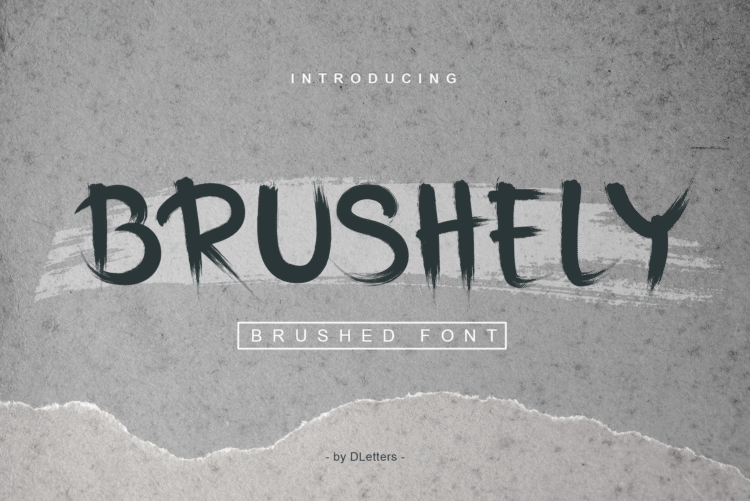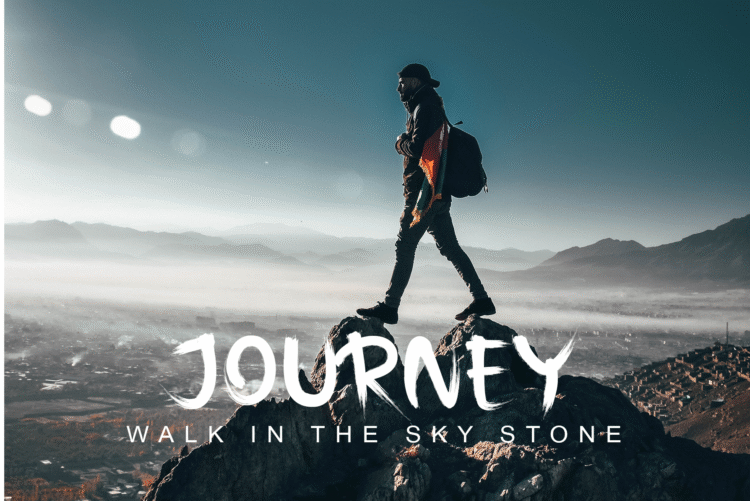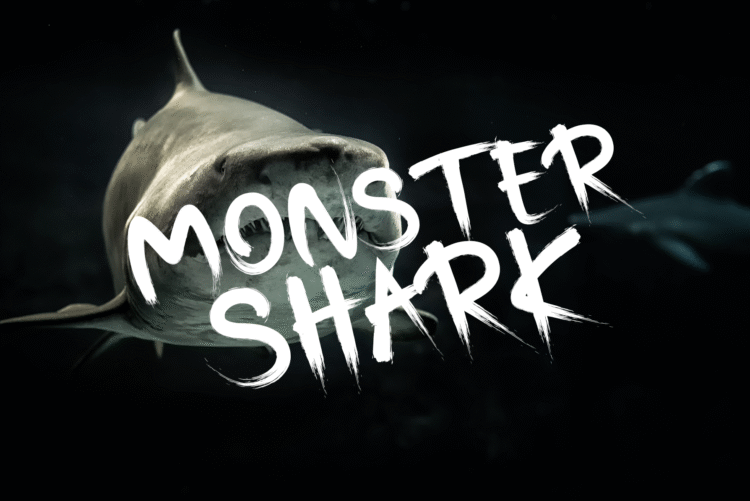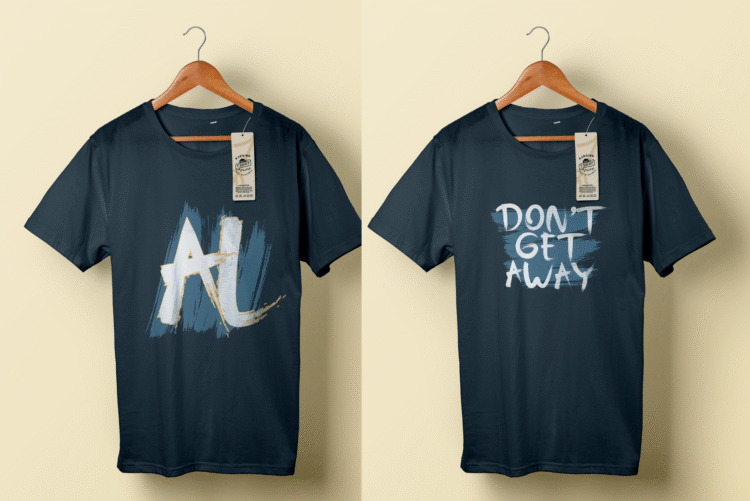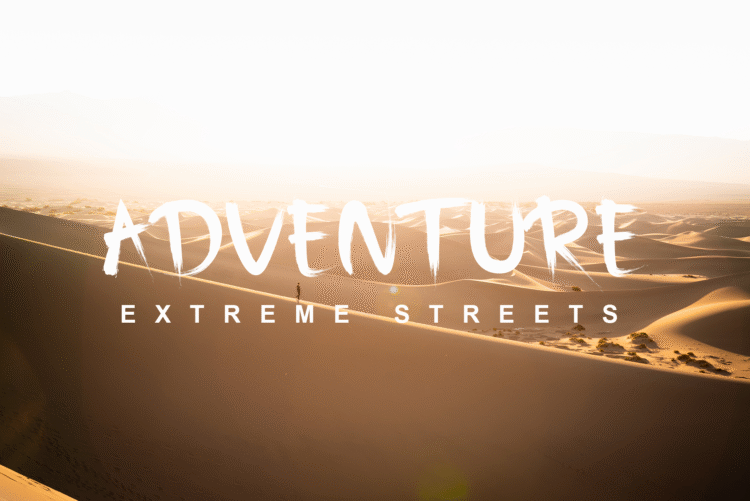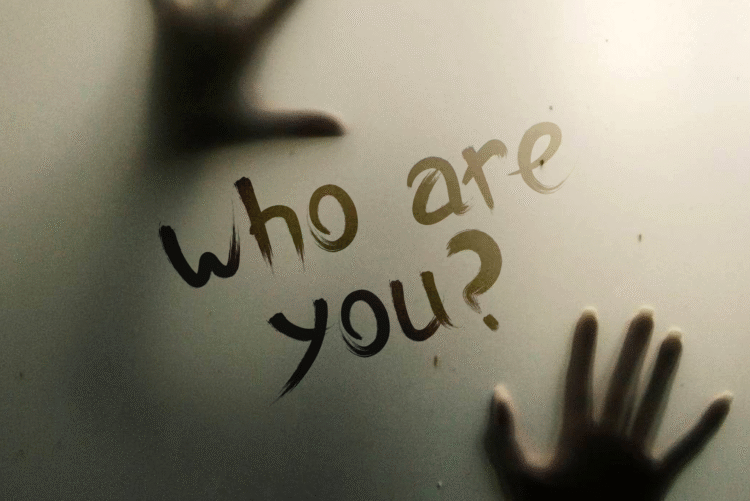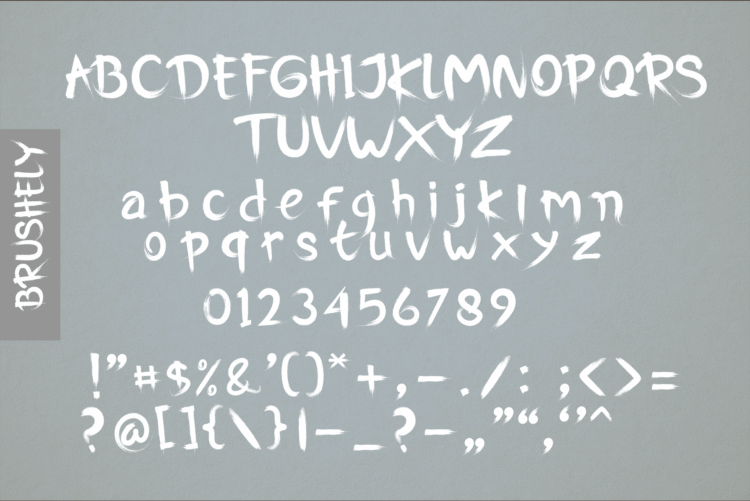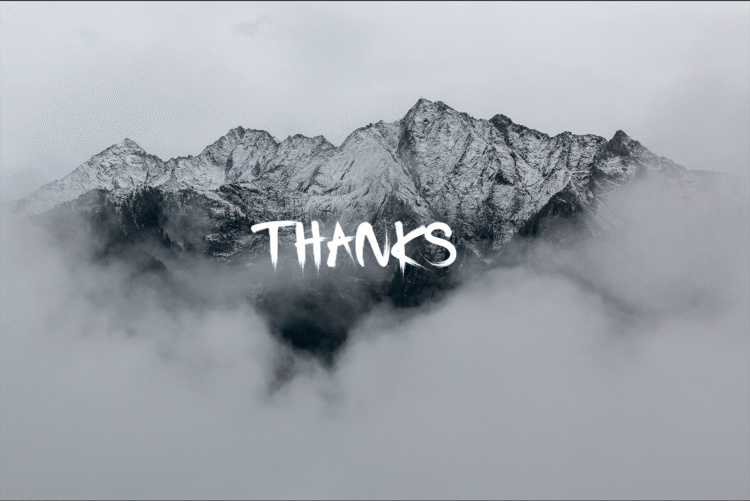
brushely spooky font
Brushely is a unique display font with a spooky feel created with the help of a brush pen. Add this font to your creative ideas and watch them pop!
Brushely Spooky Font